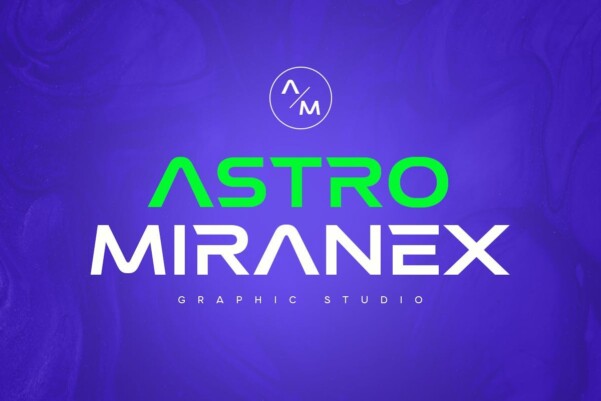
Modular Font
Modular Font is a modern futuristic sci-fi font specially designed to meet sci-fi, modern, tech and other notable typography needs, with additional outline styles that make your design more futuristic. It’s so perfect to add your style and preview of titles for cryptocurrency, technology, cinema and sci-fi theme. And especially for this font we have created a modern style and a technological touch, so take advantage of it to create any project that will highlight your main idea.